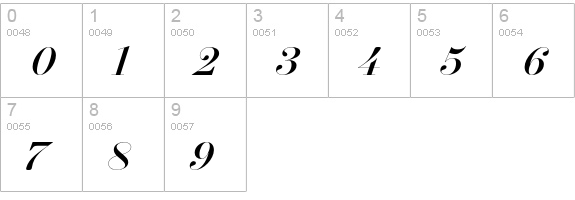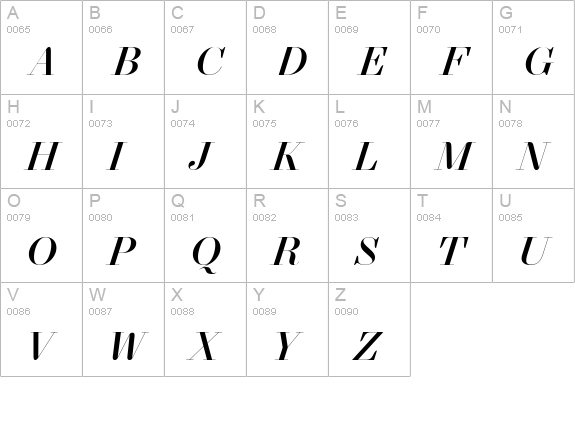
NewParis KingSize Medium Italic Font Details
NewParis KingSize Medium Italic is a balanced, medium-weight, italic variant in the NewParis typeface family \xE2\x80\x94 well suited to sub-headlines, navigation, and balanced editorial work.
Introducing the NewParis KingSize Medium Italic font - a stylish and versatile typeface designed to make a statement. With its elegant and modern design, this font is perfect for a wide range of projects, from branding to editorial design. The NewParis KingSize Medium Italic font features a sleek, contemporary look that is sure to catch the eye. Its medium weight and italic style add a touch of sophistication to any design. Whether you are creating a logo, brochure, or website, this font will bring a touch of class to your work. Best of all, the NewParis KingSize Medium Italic font is completely free to download at FontsMarket.com. This means you can start using it in your projects right away, without having to worry about any additional costs. Don't miss out on this opportunity to enhance your designs with this stunning font. Download it today and take your projects to the next level!